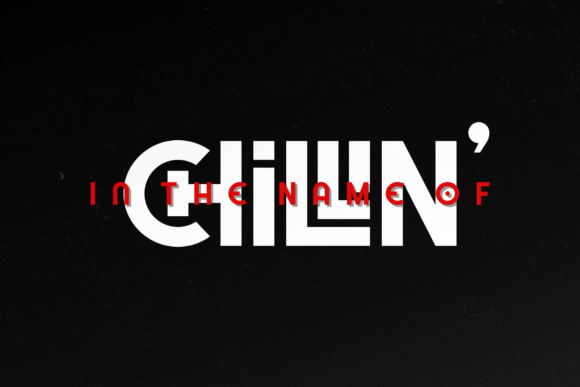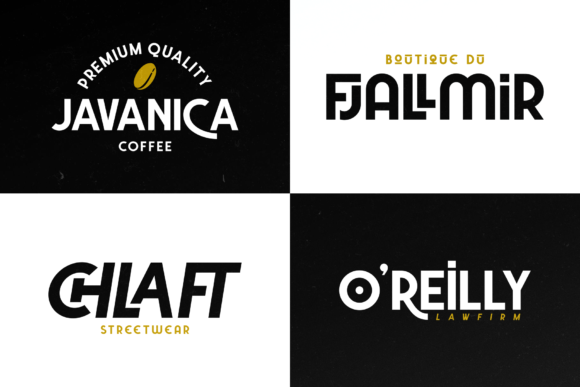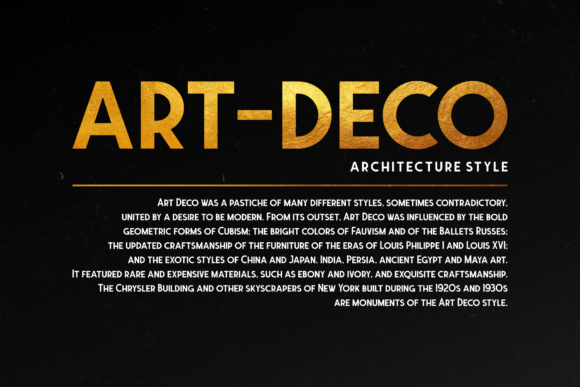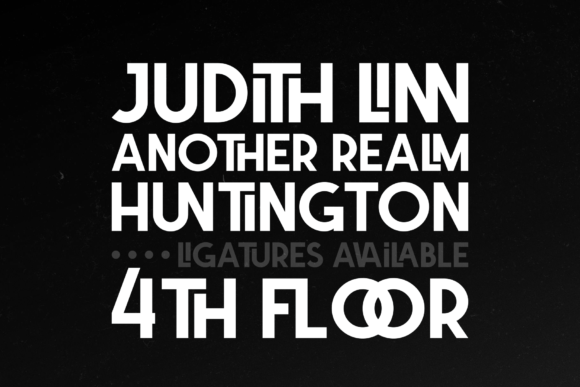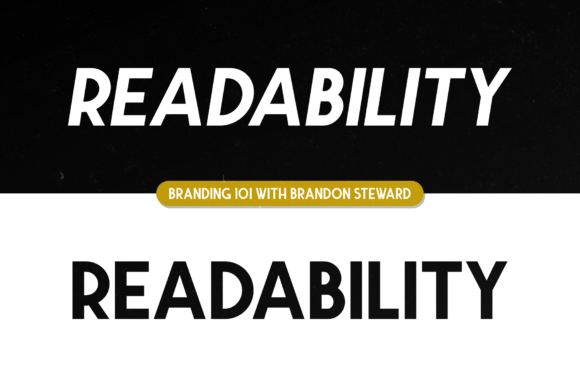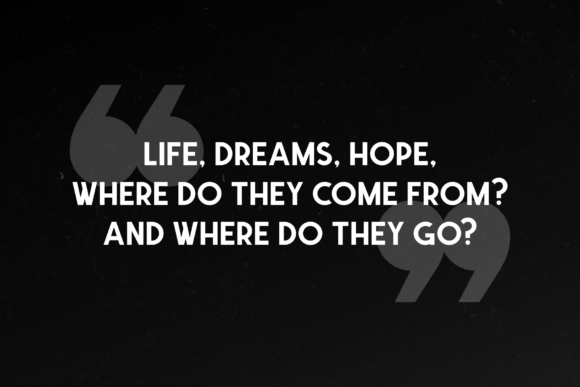
Ferghaus Font: Elevate Your Design with a Timeless and Playful Display Font
In the world of typography, fonts play a crucial role in conveying the tone and personality of a design project. For designers and crafters looking to make a statement, Ferghaus Font is an exceptional choice. Inspired by modernist aesthetics, Ferghaus is a playful, yet elegant display font that brings a timeless feel to any design project.
The Story Behind Ferghaus Font
Ferghaus Font is a carefully crafted typeface that draws inspiration from the modernist movement. Characterized by its clean lines, geometric shapes, and minimalist approach, modernist aesthetics have influenced design for decades. Ferghaus Font takes these principles and infuses them with a playful twist, making it perfect for designers seeking to add a touch of sophistication and whimsy to their work.
Key Features of Ferghaus Font
- Playful yet Elegant: Ferghaus Font strikes the perfect balance between playfulness and elegance, making it suitable for a wide range of design projects, from branding and advertising to packaging and editorial design.
- Timeless Feel: The font’s modernist inspiration ensures that it remains timeless, avoiding trends and fads, and allowing your design to stand the test of time.
- Display Font: Ferghaus Font is specifically designed as a display font, making it perfect for headlines, titles, and other prominent text elements.
- Versatile: The font’s versatility allows it to be used in various design contexts, from digital platforms to print materials.
Why Choose Ferghaus Font?
With so many fonts available, why choose Ferghaus Font for your design project? Here are a few compelling reasons:
- Stand Out: Ferghaus Font is designed to make your design project stand out from the crowd. Its unique blend of playfulness and elegance ensures that your work will grab attention and leave a lasting impression.
- Easy to Read: Despite its playful nature, Ferghaus Font remains highly legible, making it perfect for use in a variety of design contexts, including body text and captions.
- Customizable: Ferghaus Font can be easily customized to fit your brand’s personality and style, allowing you to create a unique visual identity.
Using Ferghaus Font in Your Design Projects
So, how can you incorporate Ferghaus Font into your design projects? Here are a few ideas to get you started:
- Branding and Logo Design: Use Ferghaus Font to create a bold and eye-catching logo that sets your brand apart.
- Advertising and Marketing: Ferghaus Font is perfect for headlines and titles in advertising and marketing materials, such as brochures, flyers, and social media graphics.
- Packaging Design: Add a touch of elegance and sophistication to your packaging design with Ferghaus Font.
- Editorial Design: Use Ferghaus Font to create stunning headlines and titles in editorial design projects, such as magazines, newspapers, and books.
| Font Name | Ferghaus Font |
| Author | Fontdation |
In conclusion, Ferghaus Font is an exceptional display font that brings a timeless and playful feel to any design project. Inspired by modernist aesthetics, Ferghaus Font is perfect for designers and crafters looking to create stunning and effective designs. With its versatility, legibility, and customizability, Ferghaus Font is an excellent choice for a wide range of design applications. So why settle for an ordinary font when you can elevate your design with Ferghaus Font?